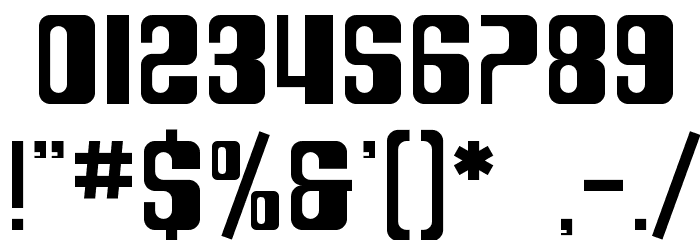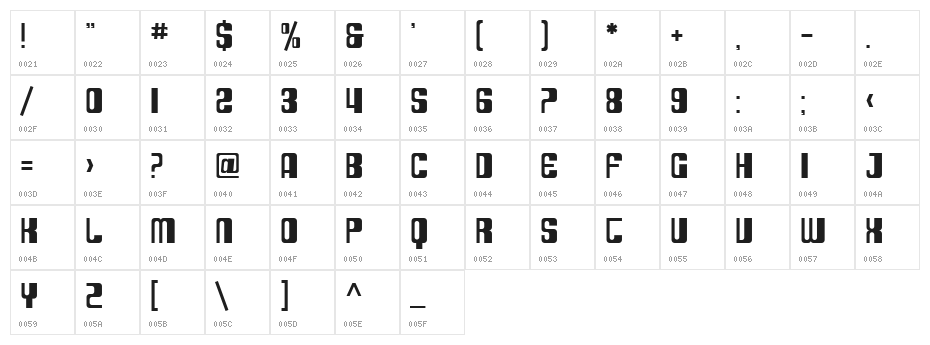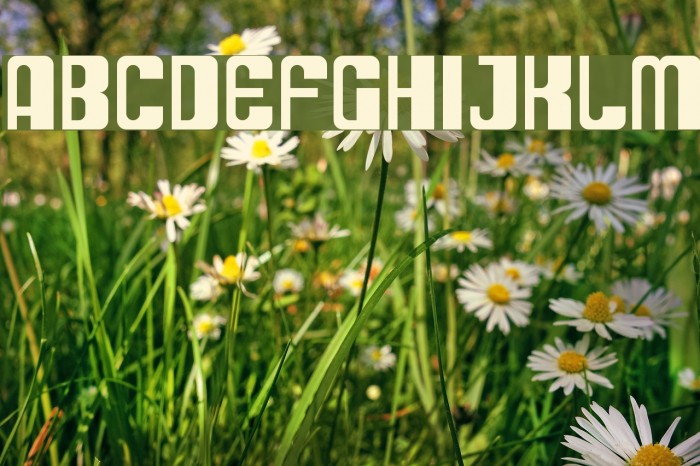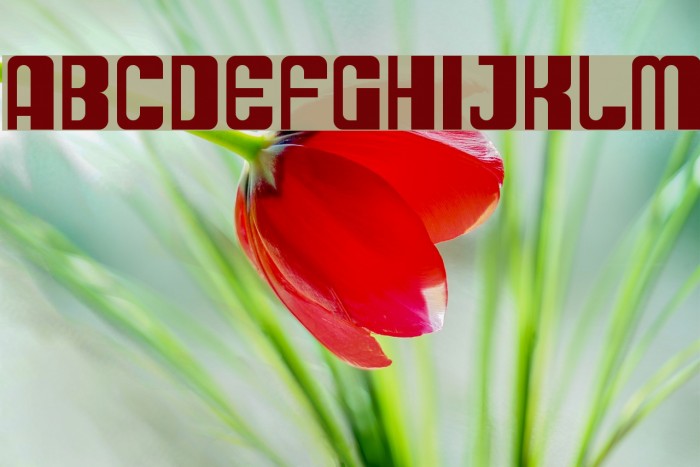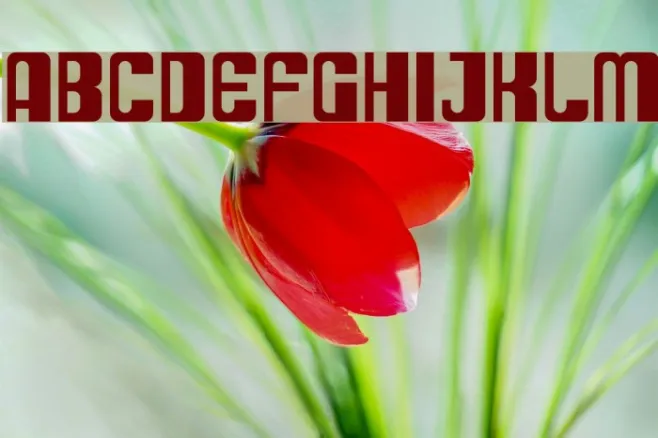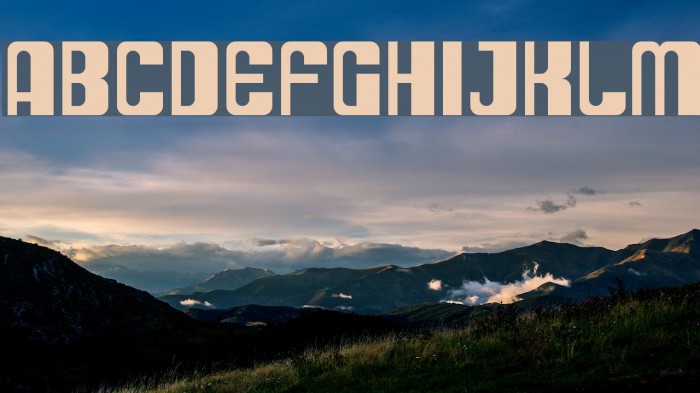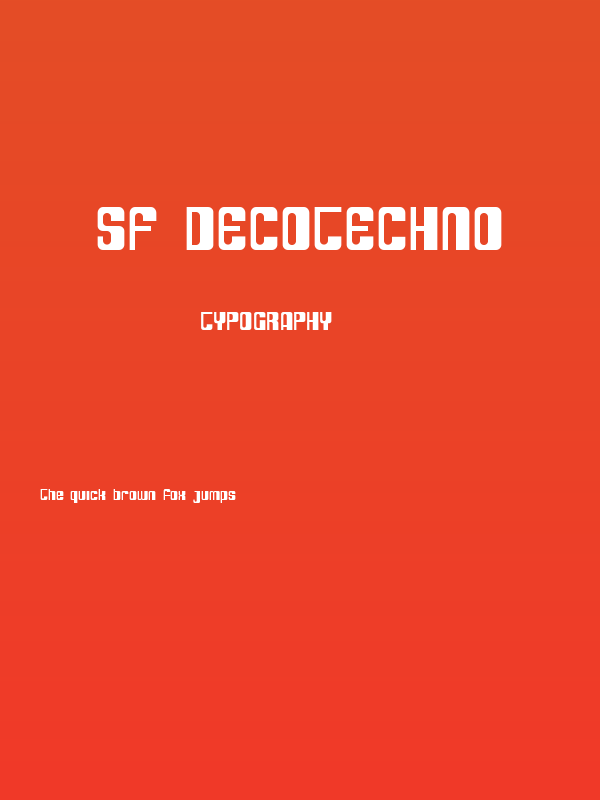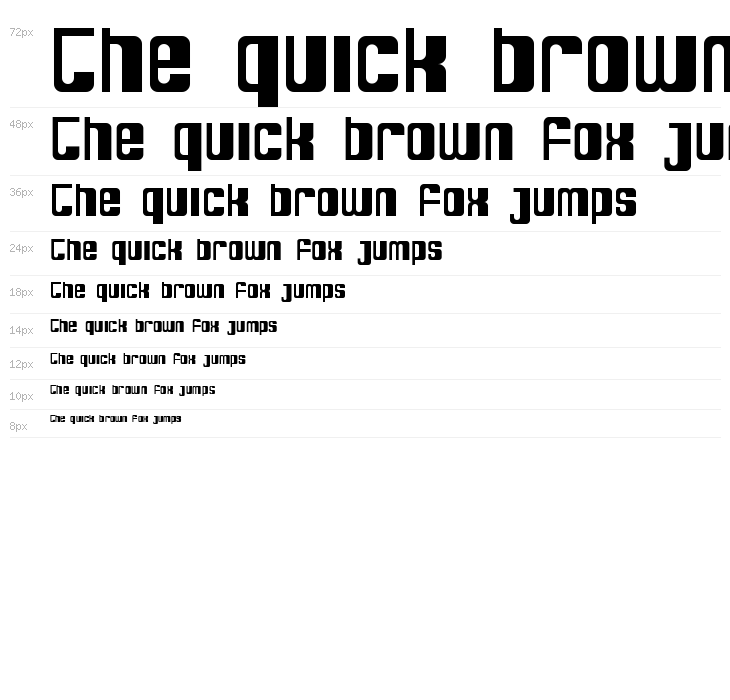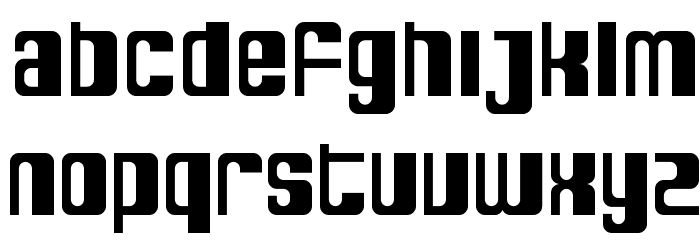
SF DecoTechno Font
SF DecoTechno Description
This font features a bold and geometric design with a futuristic flair. The characters are constructed with thick, uniform strokes that create a strong visual impact. The uppercase letters have a squared-off appearance, while the lowercase letters maintain a consistent height, contributing to a cohesive look. The numerals are distinct and easily readable, with a modern style that complements the overall aesthetic. Special characters are designed with the same boldness, ensuring they stand out effectively. This font is ideal for projects that require a modern and assertive typeface.